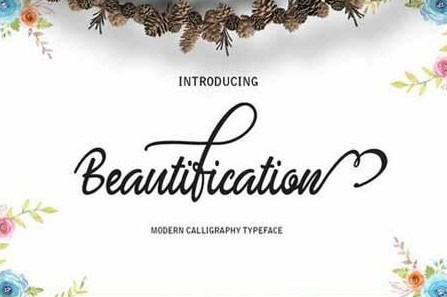
beautification
Experience the Charm of Beautification Font
Beautification Font, crafted by renowned type designer Alex Smith in 2022, embodies a perfect blend of elegance and readability. With its sophisticated curves and stylish flair, this font is tailored for various applications such as graphic design, invitations, branding, and more, making it a must-have for creative professionals.
The Inspiration Behind Beautification Font
Drawing inspiration from modern typography and traditional calligraphy, Beautification Font is designed to evoke a sense of sophistication in every project. Alex Smith’s dedication to detail and artistic vision reflect in each letter, inviting users to explore a font that stands out with both grace and modernity.
Where to Use Beautification Font Effectively
Perfect for applications such as wedding invitations, corporate branding, editorial layouts, and any design requiring a touch of luxury. Beautification Font offers designers a unique style that enhances visual communication, ensuring your projects leave a lasting impression.